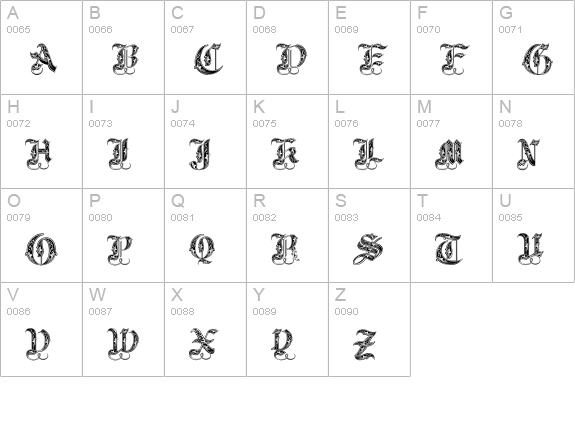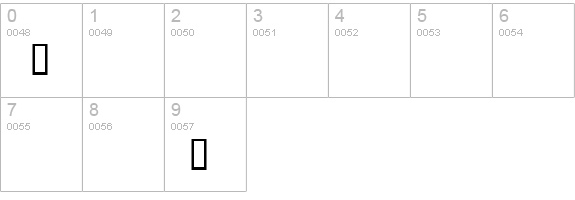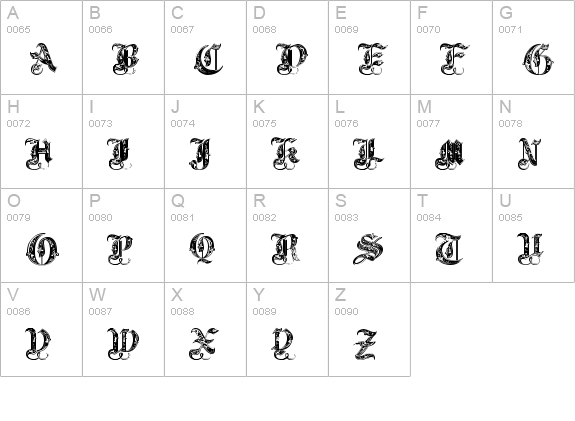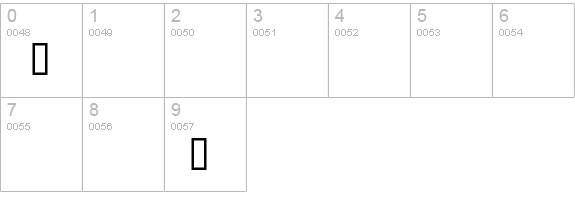
Royal Font Details
Introducing Royal Font, a majestic and elegant typeface that exudes sophistication and grace. With its regal curves and intricate details, this font is perfect for adding a touch of luxury to any design project. Royal Font is versatile and can be used for a wide range of applications, from wedding invitations and event posters to branding and logo designs. Its timeless appeal makes it suitable for both traditional and modern designs, ensuring that your creations will stand the test of time. But what sets Royal Font apart from other fonts is that it is not only beautiful, but also free! That's right, you can now download this exquisite font for absolutely no cost at FontsMarket.com. We believe that great design should be accessible to everyone, and we are thrilled to offer this stunning typeface to our valued users. With its extensive character set, including various alternates and ligatures, Royal Font allows you to create unique and personalized designs. Its clean and well-balanced letterforms ensure excellent readability, even at smaller sizes. Whether you're a professional designer or an aspiring creative, Royal Font is sure to become your go-to typeface. Its versatility, elegance, and the fact that it is freely available make it a must-have in your font collection. So don't miss out on the opportunity to enhance your designs with the beauty and grandeur of Royal Font. Download it now for free at FontsMarket.com and unleash your creativity like never before.